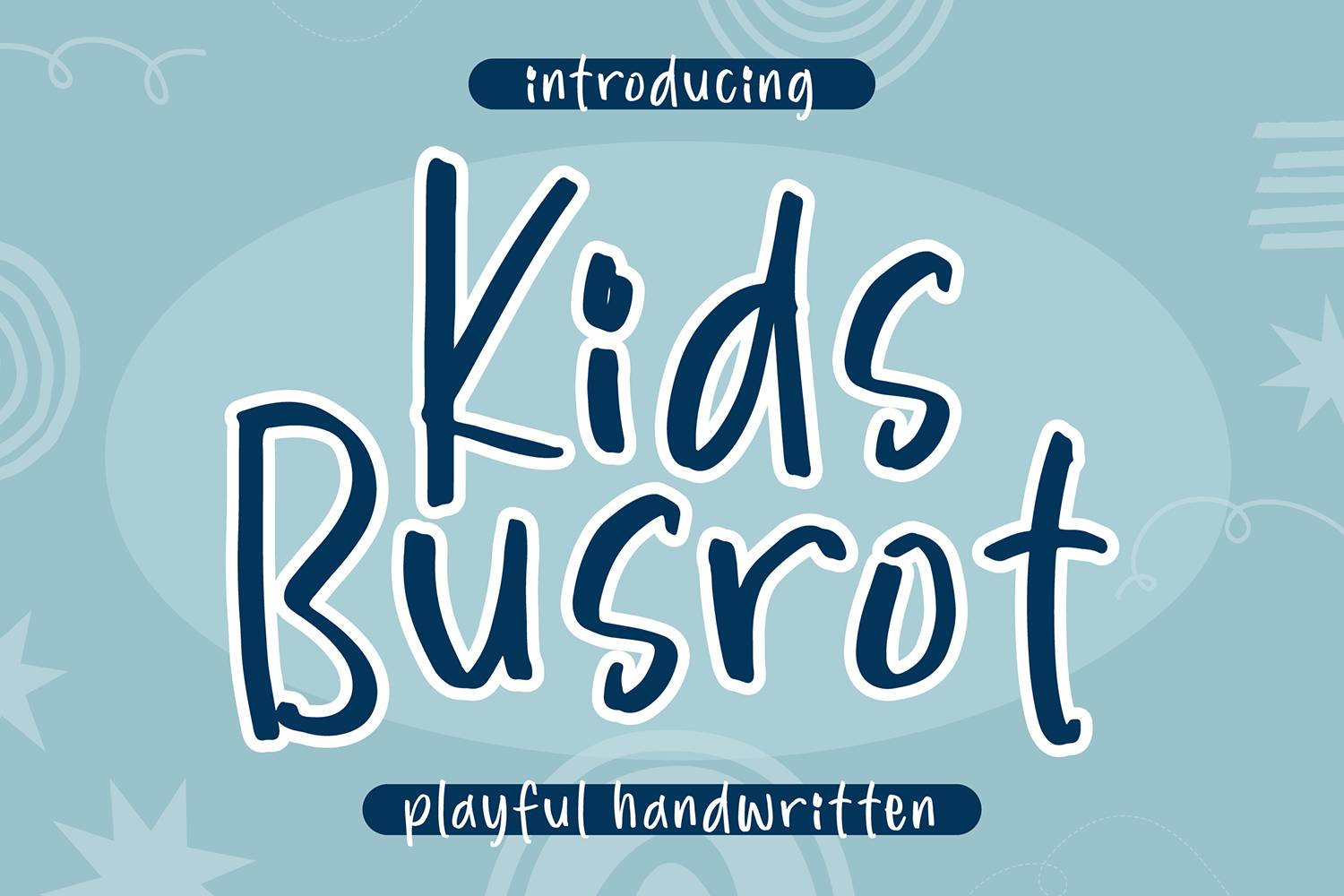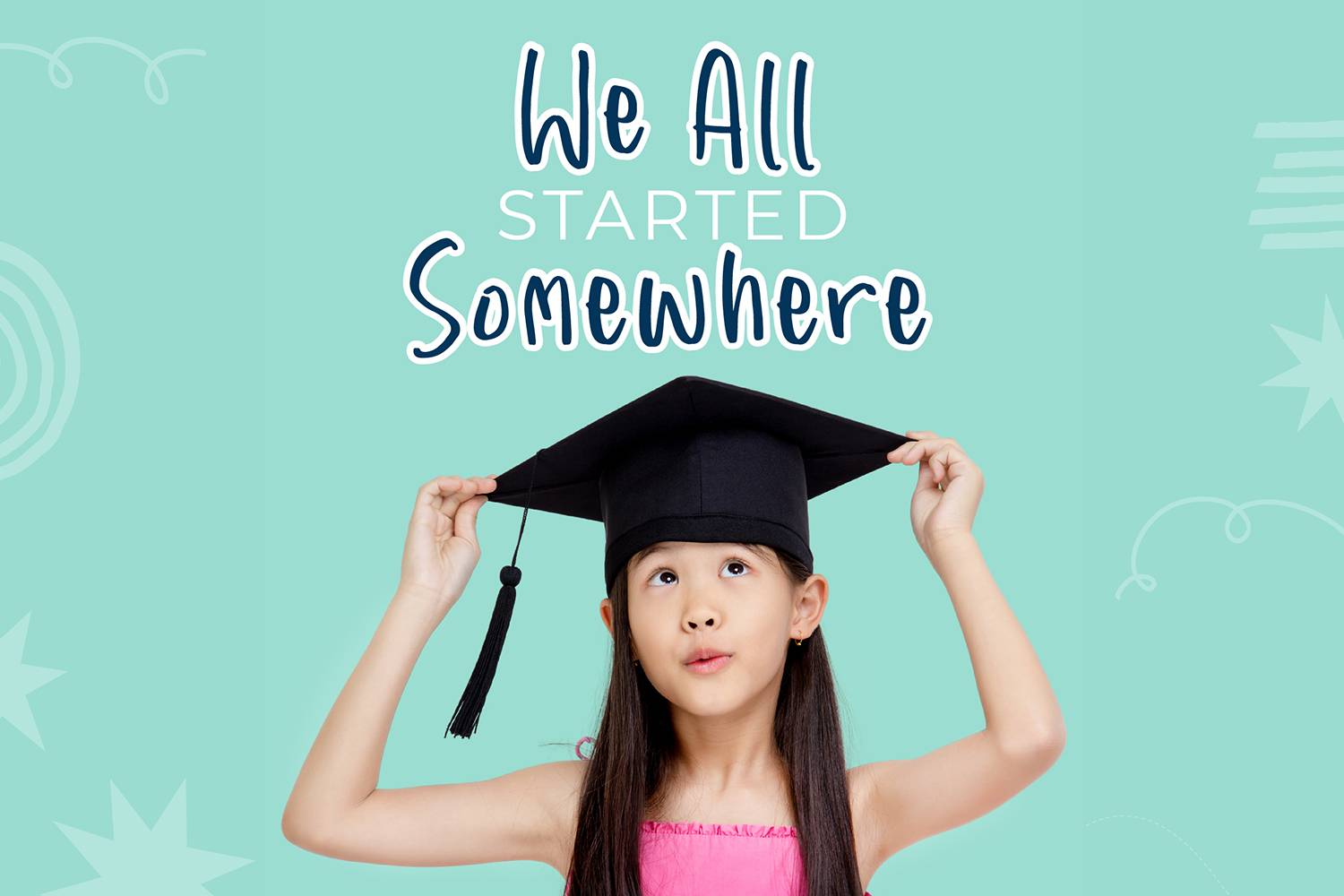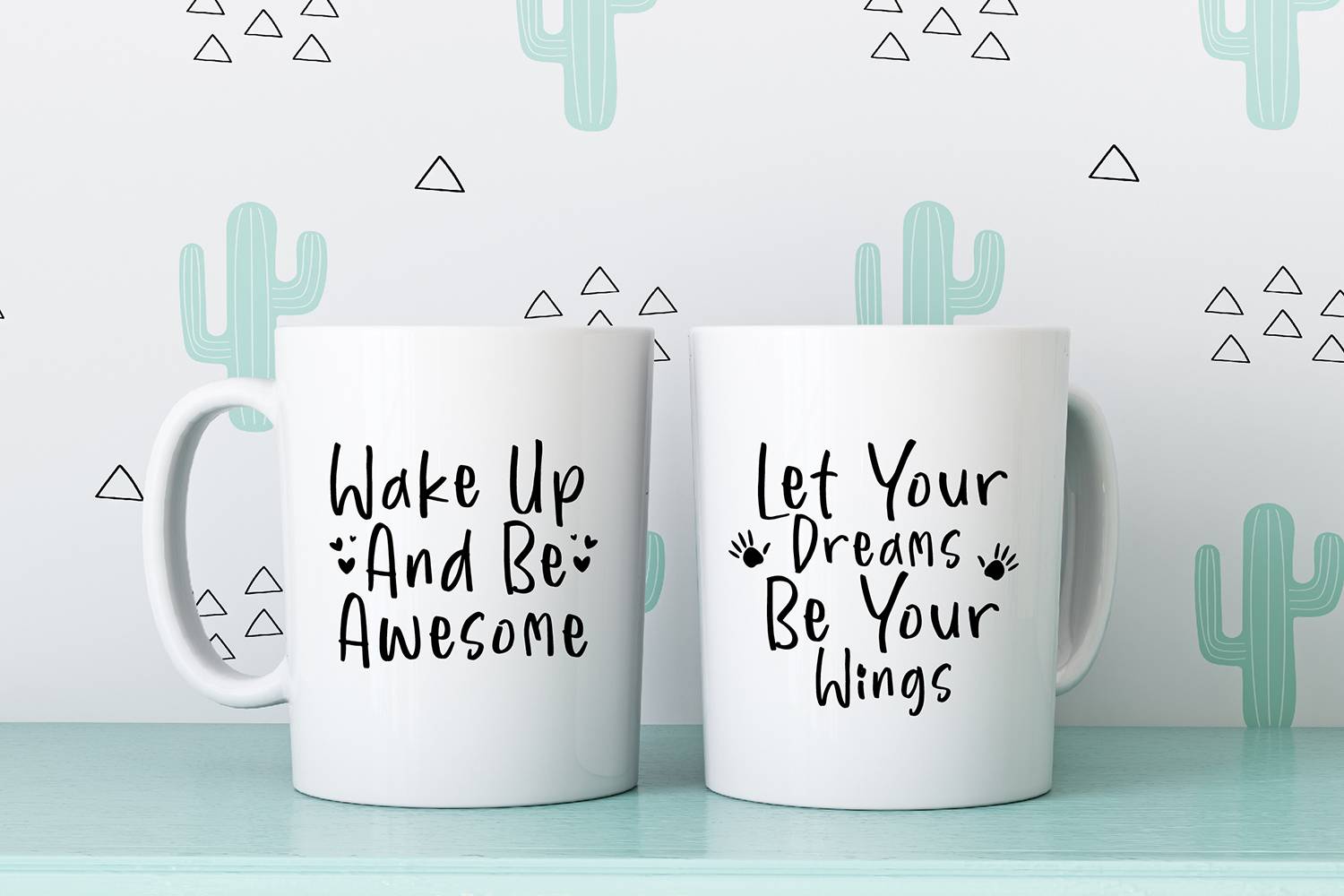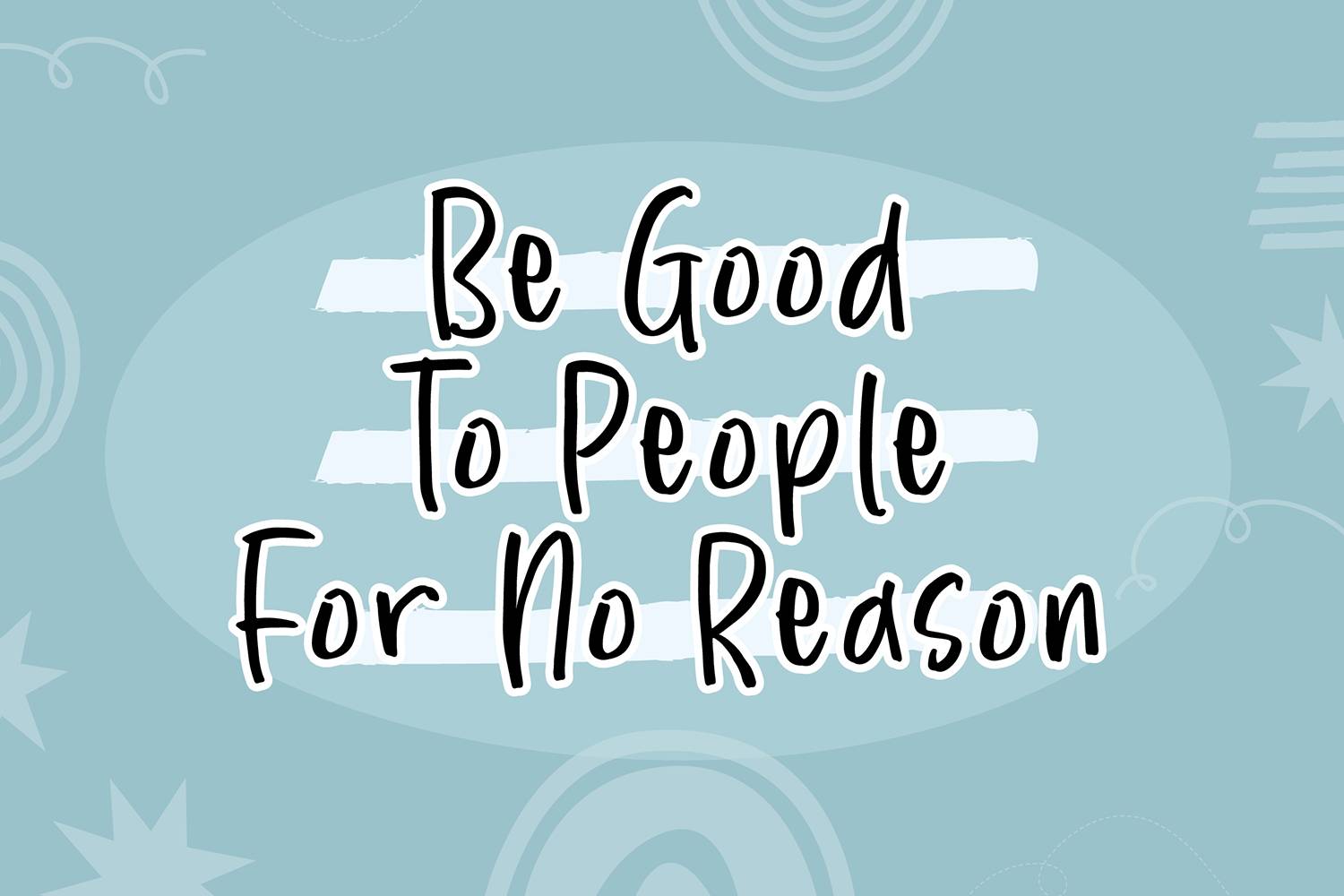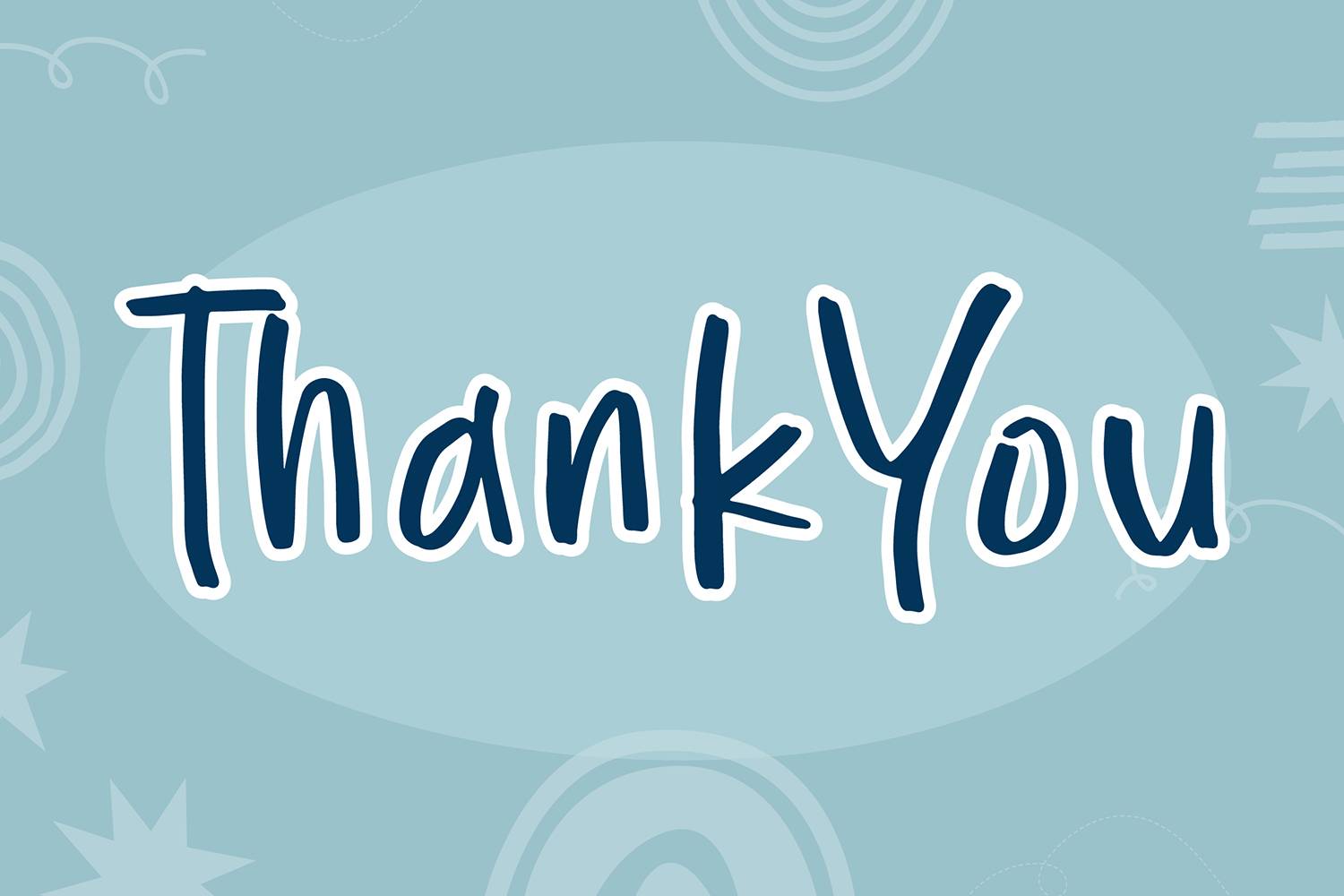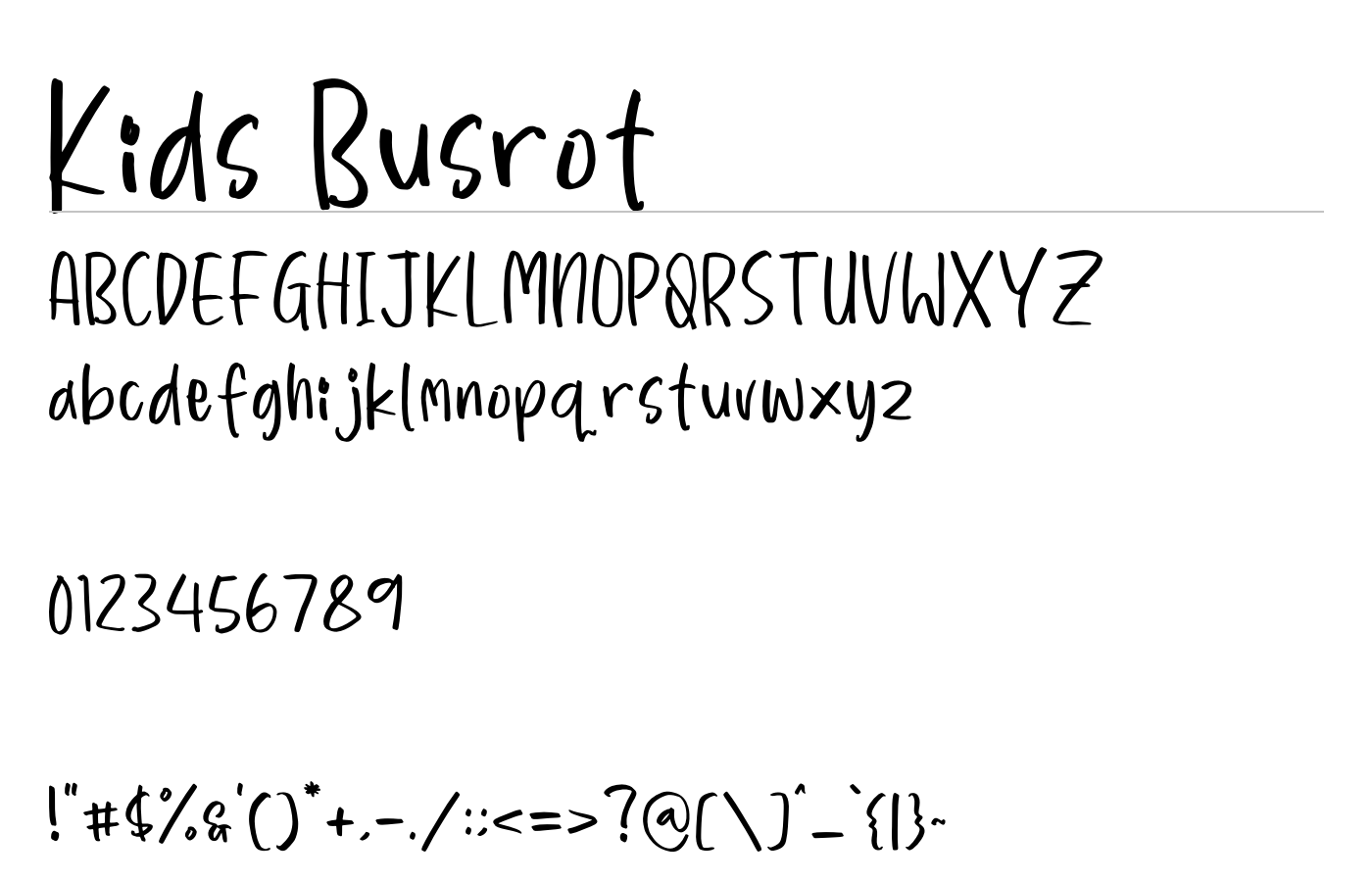
Kids Busrot is a playful, hand-drawn sans serif font with a casual and friendly feel. Its tall, slender letterforms and uneven strokes give it a lively, informal character perfect for children's books, educational materials, and fun branding projects. This font works well in designs that need a warm, approachable touch.
Kids Busrot Font